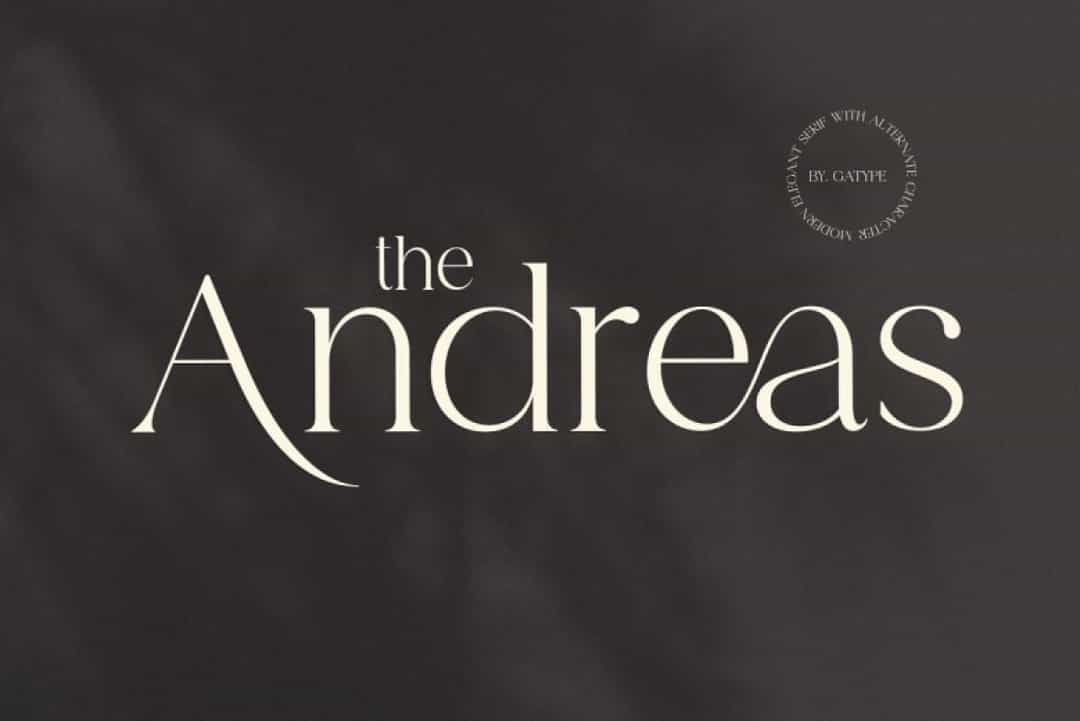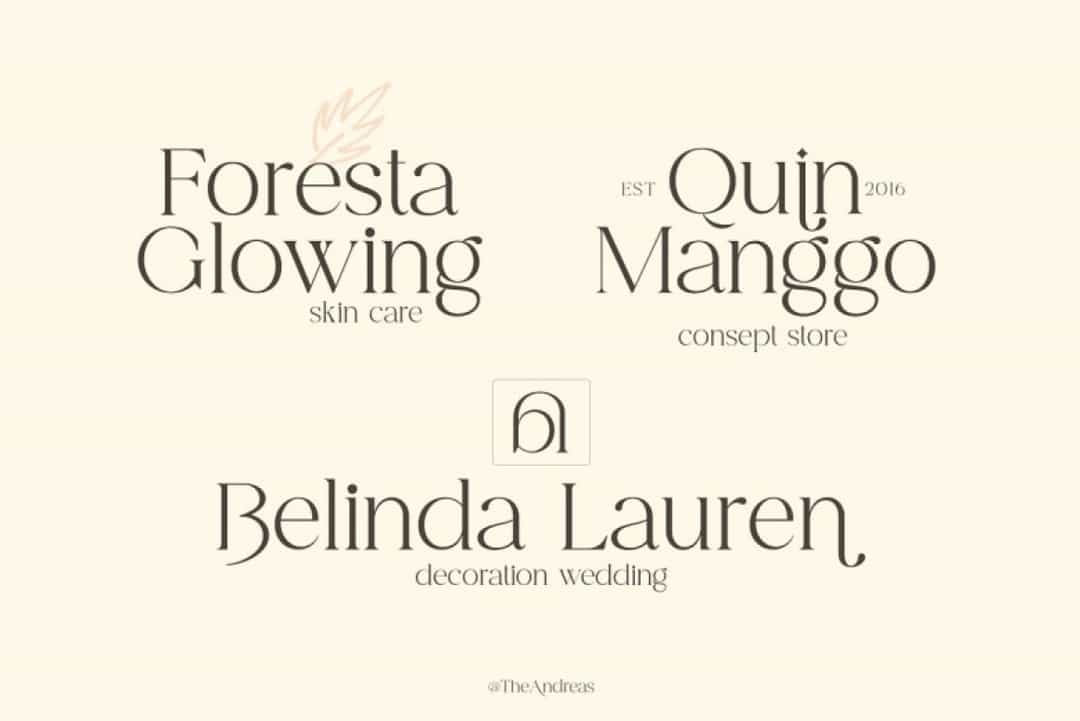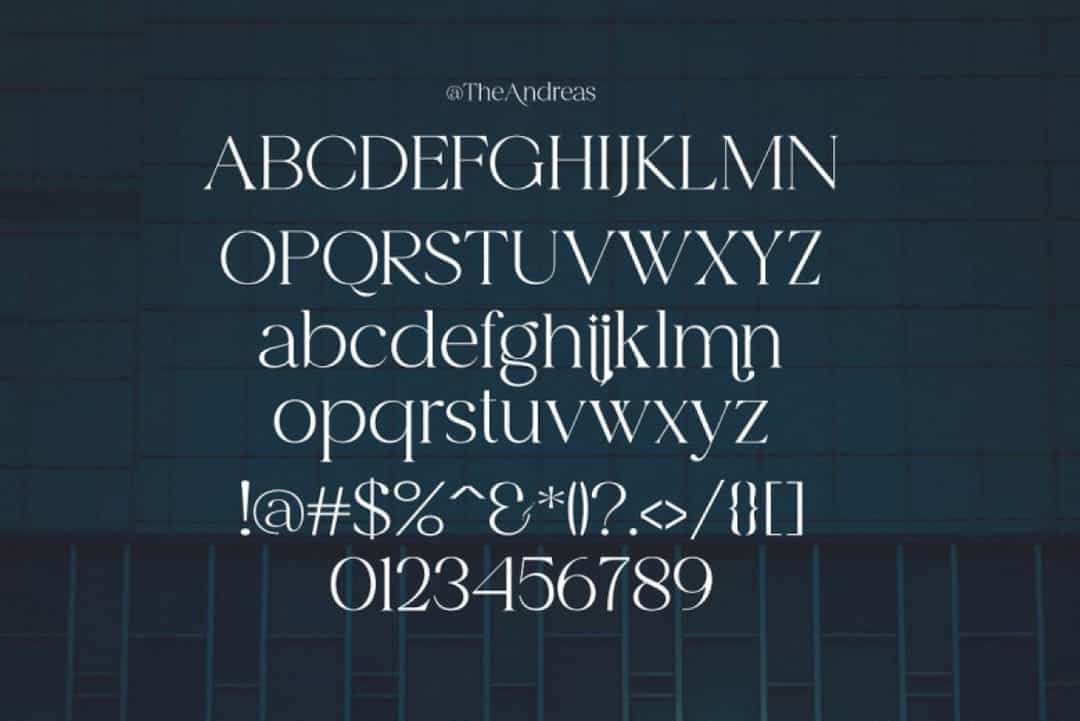
The Andreas Serif Font is perfect for branding, poster design, t-shirts, invitations, designs for kids, and editorial design. It comes with over 400 glyphs, including ligatures. OpenType features include style sets, character variants, starting and ending forms, and multilingual support.